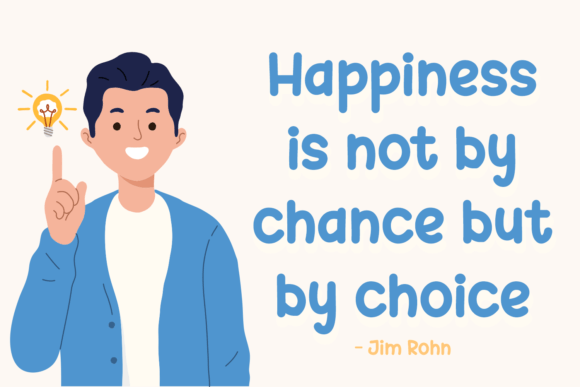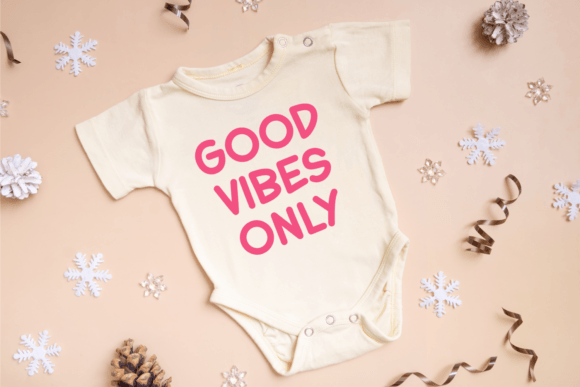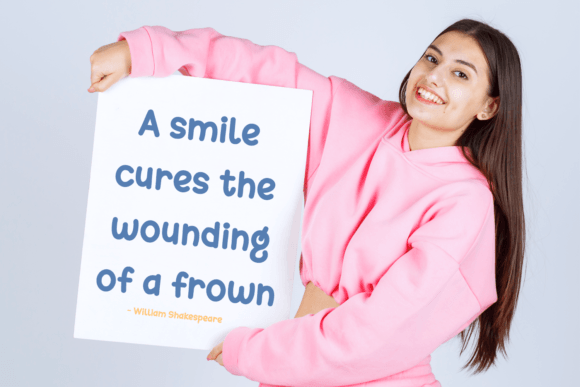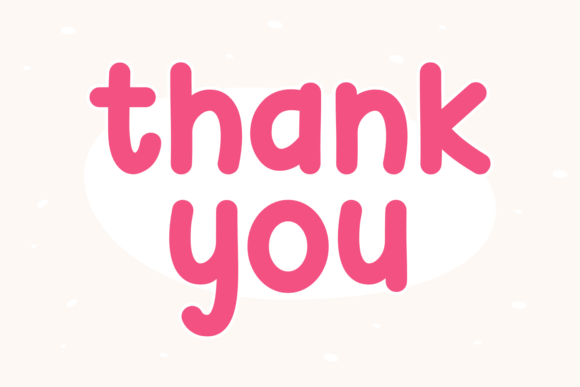
Introduction to Shared Hopes Font
Have you ever been working on a creative project and suddenly, you need a font that perfectly captures the essence of your idea? For many designers, that moment is a rush of excitement and a search for the perfect design resource. And that’s exactly where the Shared Hopes Font comes in – a delightful display font that’s bursting with charm and whimsy.
With its unique and playful style, the Shared Hopes Font is an excellent choice for adding a touch of love to your designs. Whether you’re working on a children’s game, a cartoon-related project, or simply need a high-quality font for your creative project, this font is sure to bring a smile to your face. Plus, with a transparent background and free download available, you can easily integrate it into your design without any hassle.
As a valuable addition to any designer’s toolkit, the Shared Hopes Font is a must-have for anyone looking to add a little extra personality to their designs. So why settle for a generic font when you can have a font that truly reflects your creativity and style?
Key Features of Shared Hopes Font
- Features a unique, modern aesthetic perfect for branding and advertising
- Designed to be highly legible, even at small font sizes
Honest Review: Shared Hopes Font
I recently had the chance to test the Shared Hopes Font and I must say it’s a unique addition to any designer’s arsenal. With its free download option, it’s easy to integrate into any creative project without breaking the bank.
- ✨ The font’s high quality design makes it perfect for any professional project.
- ✨ The font’s versatility makes it suitable for a wide range of design resources.
- ⚠️ The font may not be suitable for all creative projects, especially those requiring a more traditional or conservative look.
Overall, I’m impressed with the Shared Hopes Font and would recommend it to designers looking for a unique and high-quality font for their projects.
Tips for Getting the Most Out of Shared Hopes Font
To maximize the use of Shared Hopes Font, experiment with different font sizes, colors, and styles. Combine it with other design elements to create visually appealing and engaging designs.
The Shared Hopes Font is ideal for a variety of creative projects, including social media graphics, blog posts, and marketing materials. Its high-quality design and transparent background make it a versatile and effective design resource.